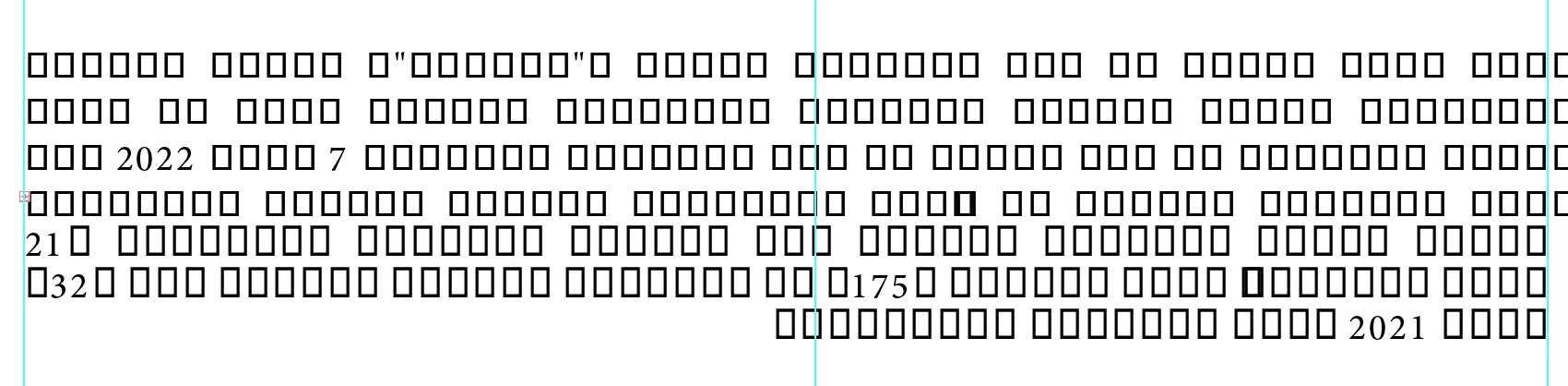
AXT Manuel Font Issue in Mac
I am using AXTManal Font in illustrator on MAC but it is not showing properly. Please help if anyone can give any solution.
Adobe announced back in 2013 that their applications will stop supporting Axt fonts as these fonts were developed as an Arabic extension for the QuarkXpress application.
Since then we had a bit of luck with some Axt fonts, but the luck is over and users must look for better and supporting Arabic fonts, I strongly advise you to acquire an OpenType font from a reputable vendor.
Adobe announced back in 2013 that their applications will stop supporting Axt fonts as these fonts were developed as an Arabic extension for the QuarkXpress application.
Since then we had a bit of luck with some Axt fonts, but the luck is over and users must look for better and supporting Arabic fonts, I strongly advise you to acquire an OpenType font from a reputable vendor.